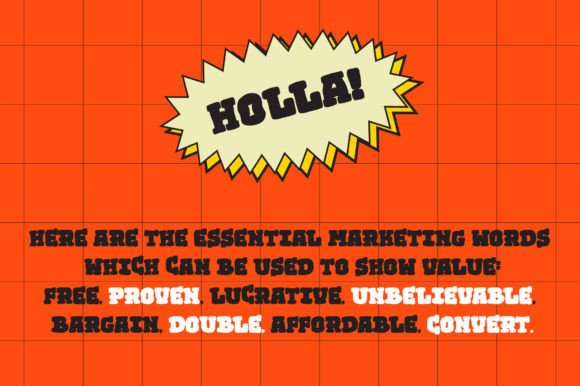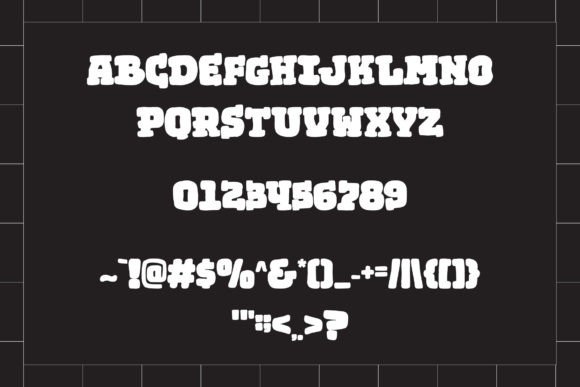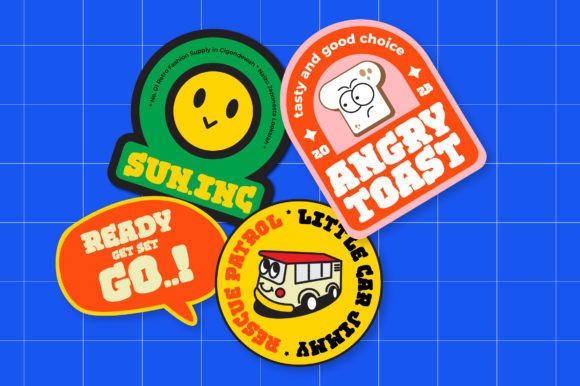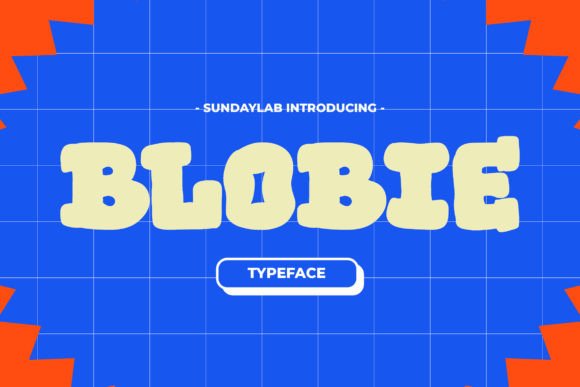
Introducing Blobie Font: The Ultimate Display Font for Creative Designs
Are you a designer or crafter looking for a unique and eye-catching font to elevate your visual creations? Look no further than Blobie Font, a display font designed to help you showcase your message in a fun and engaging way. In this article, we’ll dive into the world of Blobie Font and explore its features, benefits, and uses.
What is Blobie Font?
Blobie Font is a display font that is perfect for making a statement in your designs. Its playful and quirky style makes it ideal for use in labels, stickers, and other promotional media. With its bold and rounded edges, Blobie Font is sure to grab attention and leave a lasting impression.
Key Features of Blobie Font
- Unique and Quirky Style: Blobie Font boasts a one-of-a-kind design that sets it apart from other fonts. Its irregular shapes and rounded edges give it a playful and friendly feel.
- Highly Legible: Despite its creative design, Blobie Font remains highly legible, making it perfect for use in a variety of applications, from large-scale signage to small stickers.
- Versatile: Blobie Font can be used in a wide range of design projects, including branding, packaging, and advertising.
- Easily Customizable: With Blobie Font, you can easily adjust the size, color, and style to fit your design needs.
Benefits of Using Blobie Font
So why choose Blobie Font for your design projects? Here are just a few benefits of using this amazing display font:
- Adds a Touch of Personality: Blobie Font allows you to add a dash of personality to your designs, setting them apart from more traditional and boring fonts.
- Increases Engagement: The playful and eye-catching design of Blobie Font is sure to grab attention and increase engagement with your audience.
- Perfect for Branding: Blobie Font can help you create a unique and memorable brand identity that reflects your personality and style.
Uses of Blobie Font
Blobie Font is a versatile display font that can be used in a wide range of design projects, including:
- Labels and Stickers: Blobie Font is perfect for creating eye-catching labels and stickers for products, packaging, and promotional materials.
- Signage and Displays: Use Blobie Font to create bold and attention-grabbing signage and displays for events, exhibitions, and storefronts.
- Branding and Packaging: Blobie Font can help you create a unique and memorable brand identity that reflects your personality and style.
- Social Media Graphics: Use Blobie Font to create engaging and shareable social media graphics that showcase your message.
Tips for Using Blobie Font
Here are a few tips for getting the most out of Blobie Font:
- Experiment with Colors: Try out different colors and combinations to find the perfect look for your design.
- Play with Size: Experiment with different font sizes to create visual interest and hierarchy in your design.
- Mix and Match: Combine Blobie Font with other fonts and design elements to create a unique and eye-catching look.
| Author | Sundaylab |
In conclusion, Blobie Font is a unique and versatile display font that can help you take your designs to the next level. With its playful and quirky style, high legibility, and ease of use, Blobie Font is perfect for designers and crafters looking to add a touch of personality to their creations. So why not give Blobie Font a try today and see the difference it can make in your designs?